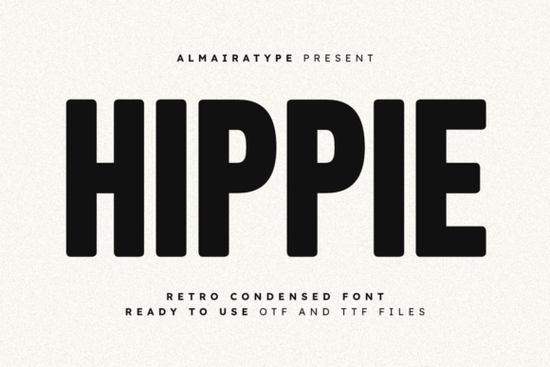
The Hippie Font is a standout choice for anyone looking to add a retro vibe to their designs. With its bold and condensed style, it brings a sense of nostalgia while still feeling modern and clean. This font works well in a variety of settings, from logos to social media graphics, making it a versatile addition to any designer’s toolkit. Whether you're creating something for a clothing brand or a print-on-demand project, the Hippie Font offers both style and functionality.
One of the key strengths of the Hippie Font is its readability. Despite its bold appearance, it remains easy to read even at smaller sizes. The slightly rounded edges give it a friendly and approachable feel, which makes it perfect for projects that need to convey warmth and personality. It's also great for use in vinyl cutting projects, especially when working with tools like Cricut or Silhouette. The font’s structure ensures that each letter cuts smoothly, resulting in a professional finish every time.
Designers who work with vintage themes will find the Hippie Font particularly useful. Its aesthetic draws inspiration from 70s and 80s typography, giving it a timeless quality that can enhance a wide range of creative projects. From t-shirt designs to editorial layouts, this font adds a unique flair without overwhelming the overall design. It pairs well with other fonts, making it a flexible option for both standalone and combined typographic solutions.
What Makes the Hippie Font Unique?
The Hippie Font stands out due to its balance between retro charm and modern minimalism. Unlike many other fonts that lean too heavily into one style, this typeface manages to blend both elements seamlessly. Its tall and sturdy structure gives it a commanding presence, while the soft edges keep it from feeling too harsh or rigid. This combination makes it suitable for both high-impact designs and more subtle, elegant projects.
Another notable feature is its versatility across different mediums. Whether you're designing for print, digital, or physical products, the Hippie Font adapts well to each format. Its clean lines ensure that it looks sharp on screens, while its strong structure makes it ideal for large-scale printing. This makes it a go-to choice for designers, crafters, and small business owners who need a reliable and stylish font for multiple applications.
Who Can Benefit from Using the Hippie Font?
Graphic designers, clothing brands, and print-on-demand sellers will find the Hippie Font to be an essential tool. Its bold and eye-catching style helps designs stand out, which is crucial in competitive markets. For small businesses, using a unique font like Hippie can help establish a distinct brand identity that resonates with customers. It’s also a great option for creative hobbyists who want to add a personal touch to their projects without sacrificing professionalism.
Crafters who work with vinyl cutting machines will appreciate how the Hippie Font performs in those environments. The font’s structure allows for precise cutting, ensuring that each letter is clear and consistent. This is especially important for projects that require a polished look, such as custom signs, stickers, or personalized items. The font’s readability also means that it works well in both large and small formats, giving users more flexibility in their designs.
How to Use the Hippie Font Effectively
When using the Hippie Font, it’s best to pair it with simpler fonts to avoid visual clutter. For example, combining it with a clean sans-serif font can create a balanced and professional look. It’s also important to consider the context in which the font is used. While it works well for headlines and titles, it may not be the best choice for long blocks of text due to its condensed nature.
Experimenting with different sizes and weights can also help highlight the font’s strengths. Using it for short phrases or key messages can draw attention without overwhelming the design. Additionally, testing the font in different lighting conditions and on various surfaces can help ensure that it maintains its clarity and impact across all applications.
If you’re interested in exploring similar fonts, you might want to check out Godthem Font or Muffin Font. Both offer unique styles that could complement your design work. For more options, you can also visit Hippie Font directly on Creative Fabrica.
Before finalizing your design, make sure to test the Hippie Font in real-world scenarios. This includes checking how it looks on different devices, in various sizes, and in different color schemes. Taking the time to refine your use of the font will help ensure that it enhances your project rather than detracts from it.
For a quick reference, here’s a checklist to help you get the most out of the Hippie Font:
- Test readability at different sizes and in various contexts.
- Pair with complementary fonts to maintain visual balance.
- Consider the medium (print, digital, or physical) when using the font.
- Use it for impactful text like headlines or logos rather than body copy.